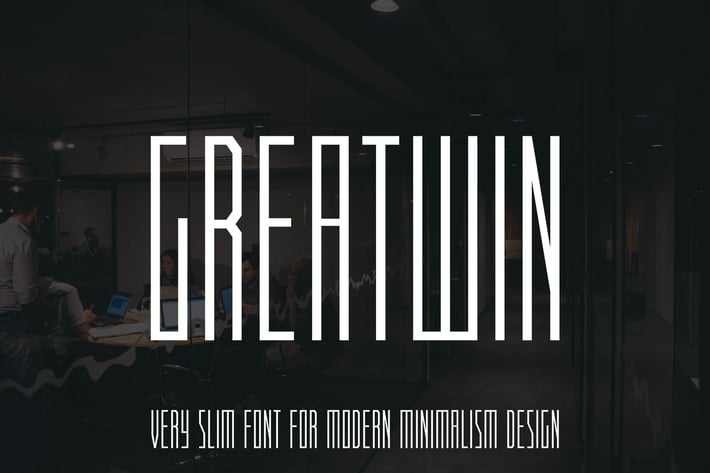
Greatwin Advertisement Font
Greatwin is elegant modern condensed sans serif font family. It can easily be matched to an incredibly large set of projects for your company/ corporate, so add it to your creative ideas and notice how it makes them stand out!